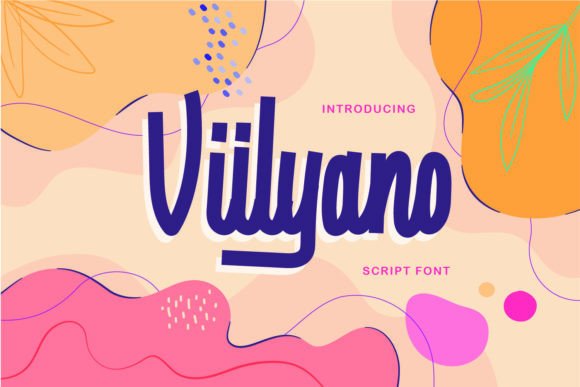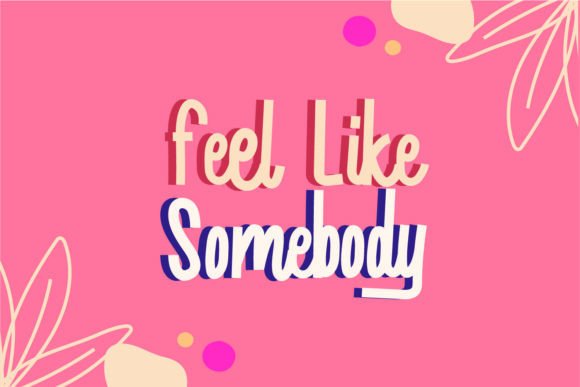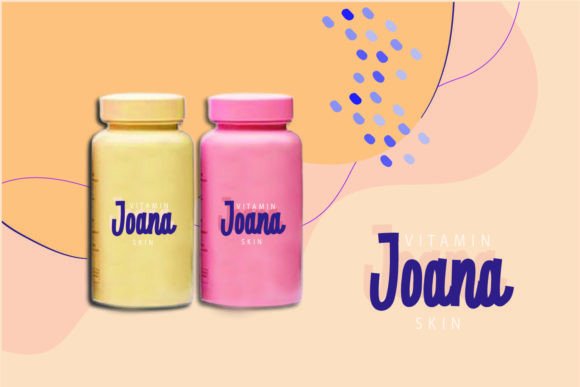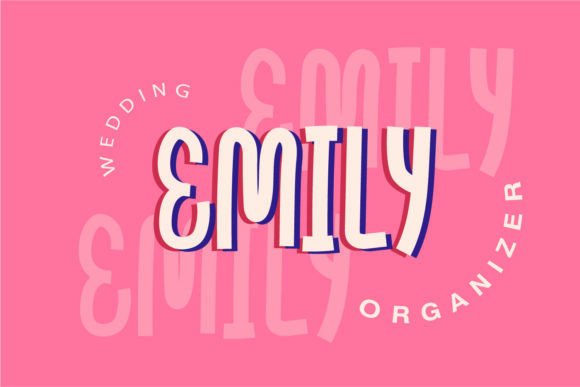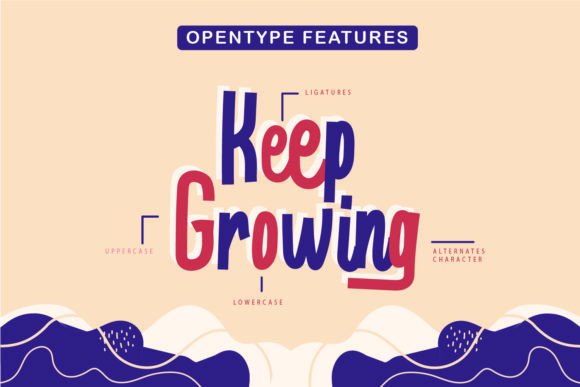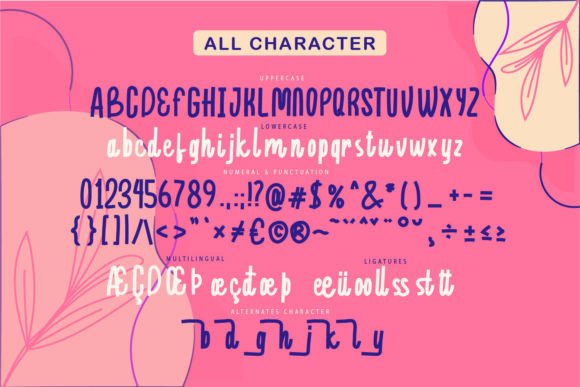
Viilyano Font
A Stunning Script Font for Creative Projects
Viilyano Font is a stunning script typeface that brings a touch of modern elegance to any design. With its graceful calligraphy style, this font is ideal for creating eye-catching invitations, greeting cards, and other stationery items. The intricate letterforms and flowing strokes of Viilyano add a sense of sophistication and beauty to your projects, ensuring they stand out with style and class.
Perfect for Wedding Invitations and Special Occasions
The Viilyano Font is perfect for wedding invitations and other special occasion designs. Whether you’re designing save-the-dates, invitations, or thank you cards, this font adds a romantic and luxurious feel to your stationery. Its calligraphic style provides a timeless touch, making it ideal for celebrations and personal events that require a sophisticated design.
Great for Branding and Business Cards
For branding materials and business cards, the Viilyano Font offers a luxurious and memorable design. Whether you’re creating a business card, logo, or social media content, this font brings a unique and authentic touch to your brand. Its graceful strokes ensure that your branding feels both elegant and approachable, making it a great choice for a wide range of industries.
Ideal for Quotes and Posters
For quotes and posters, the Viilyano Font brings a trendy and captivating charm to your designs. Whether you’re creating motivational posters, advertisements, or digital designs, this font adds a sense of beauty and sophistication. Its flowing letterforms make it perfect for projects that require attention-grabbing, yet refined typography.
Perfect for Digital and Print Designs
Whether you’re working on digital designs or print media, the Viilyano Font offers versatility that adapts to any project. From websites to print advertisements, this font ensures your designs remain elegant, legible, and memorable. Its combination of intricate letterforms and fluid strokes makes it suitable for both formal and casual applications.
Elegant, Legible, and Versatile
Despite its intricate design, the Viilyano Font remains legible and versatile. Its well-spaced letters and flowing strokes make it easy to read, even at smaller sizes or for longer passages of text. Whether you’re designing headlines, captions, or body text, this font strikes the perfect balance between style and clarity, making it ideal for various creative applications.
Add Sophistication and Charm to Your Designs with Viilyano Font
If you’re looking for a romantic, luxurious, and elegant handwritten font to elevate your designs, the Viilyano Font is the perfect choice. Whether you’re working on wedding invitations, branding materials, quotes, or posters, this font brings sophistication and charm to your creative projects. Let the Viilyano Font breathe life, elegance, and beauty into your work and make it stand out with captivating style.